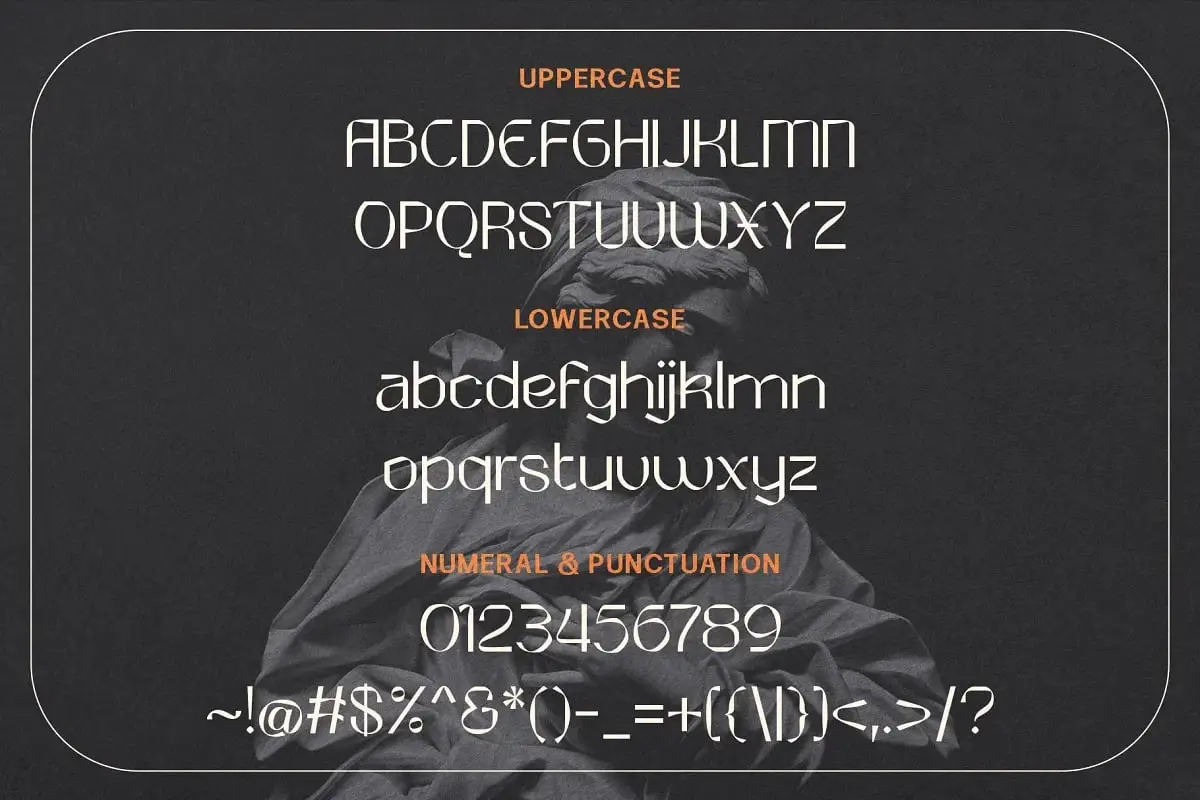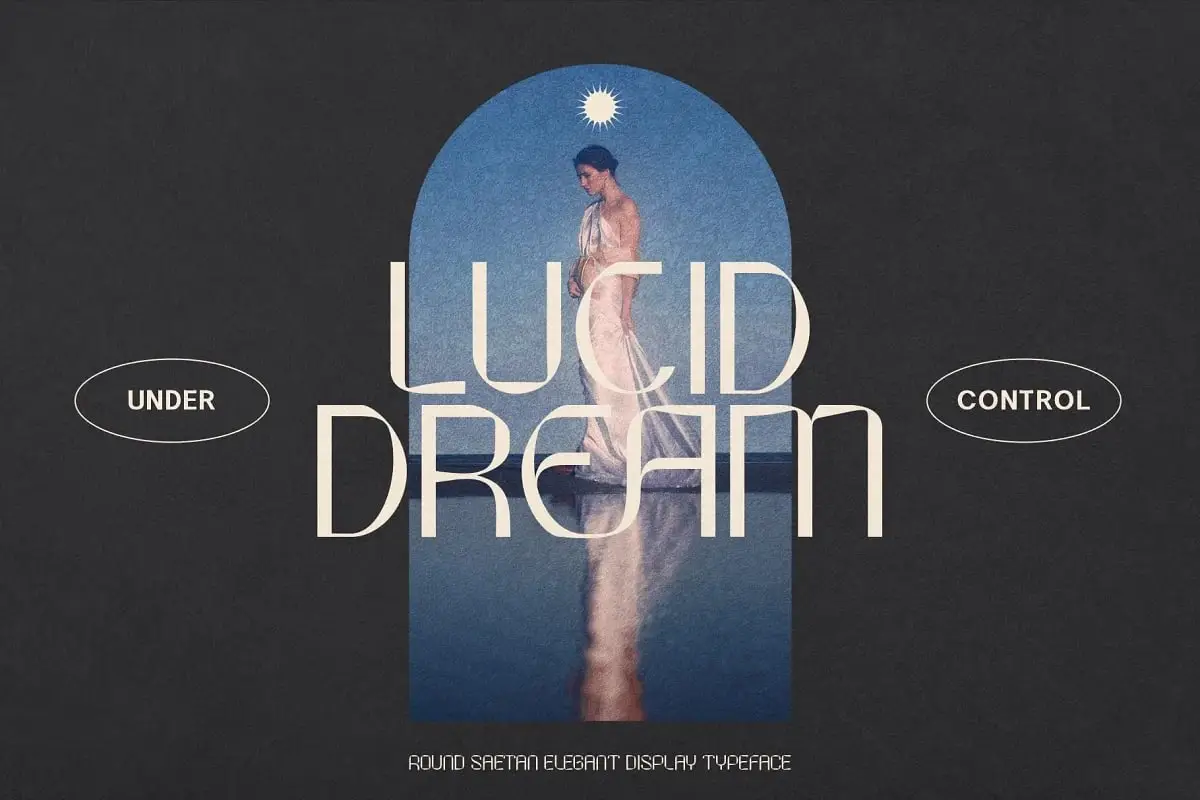
Round Saetan Typeface
The Round Saetan Typeface is a modern and versatile font that brings a unique touch to your design projects. With its rounded edges and clean lines, this typeface is perfect for a variety of applications, including branding, logos, web design, and print materials.
• Stylish rounded letterforms
• Multiple weights for flexibility
• Uppercase and lowercase characters
• Ideal for creating eye-catching logos and branding elements
• Use in web design for a modern, friendly look
• Perfect for print materials such as brochures and flyers